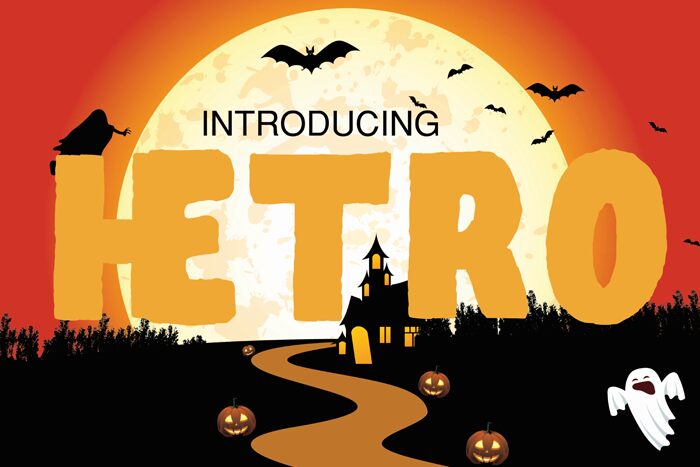
HETRO Regular
HETRO is the one-and-only handwritten font for any Halloween crafting ideas. Its spooky, scary and weird, and will turn any design project into a true standout!